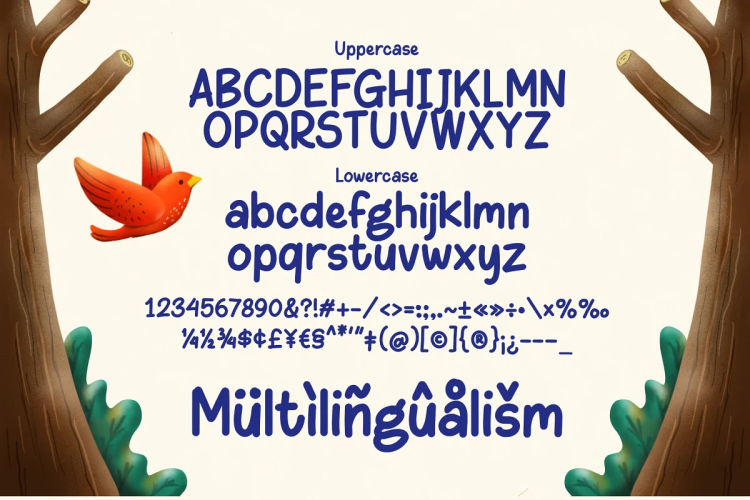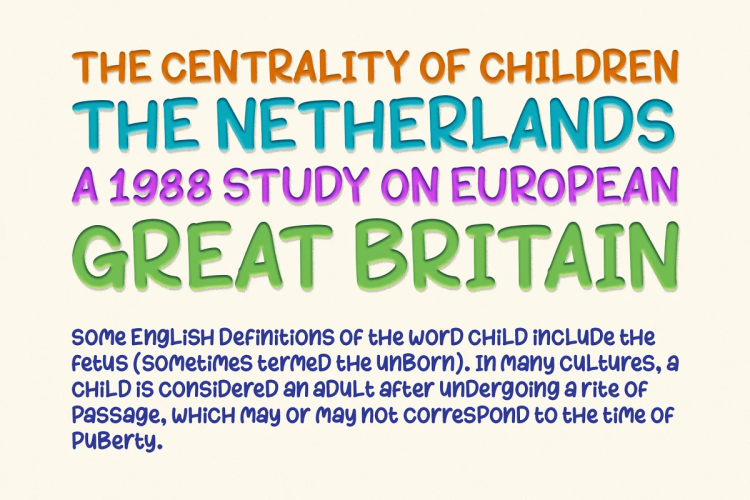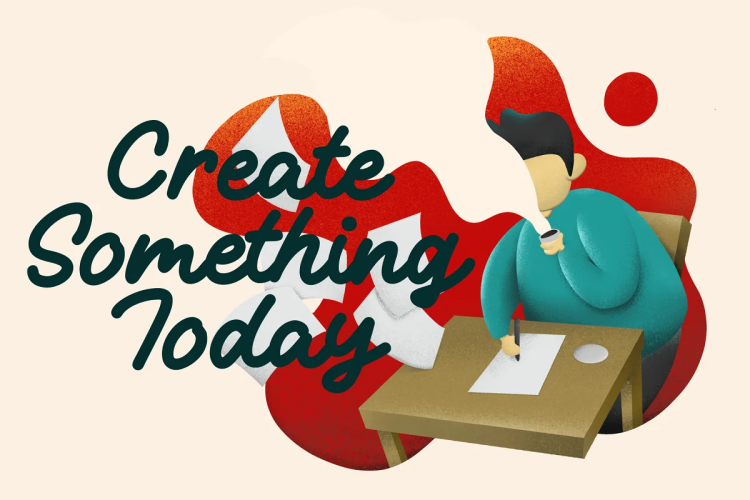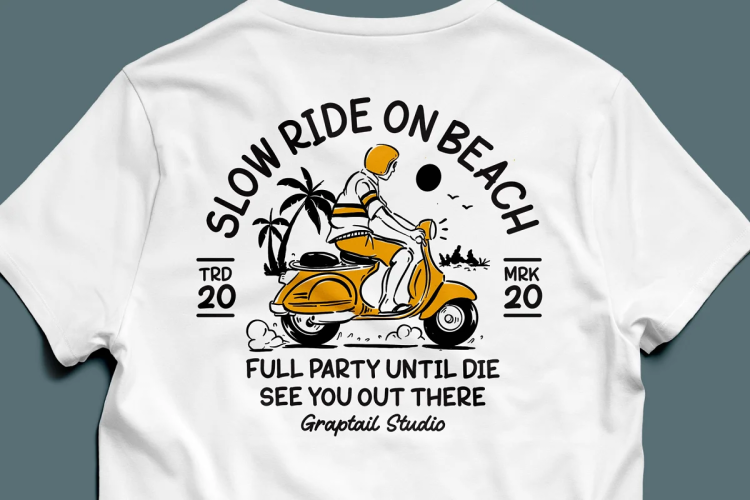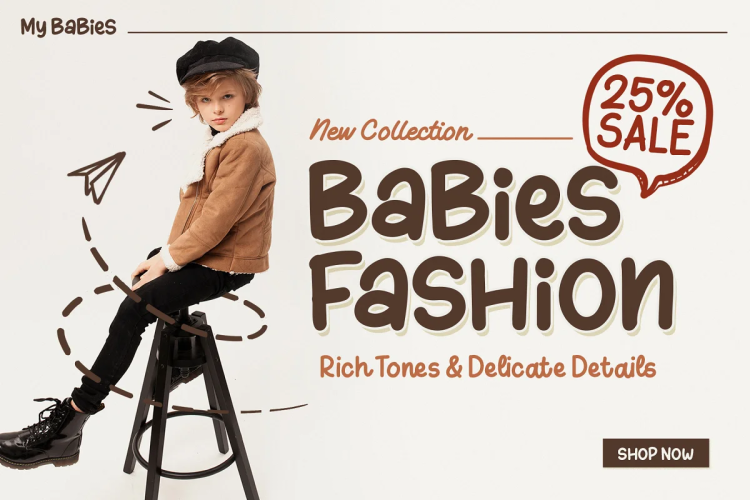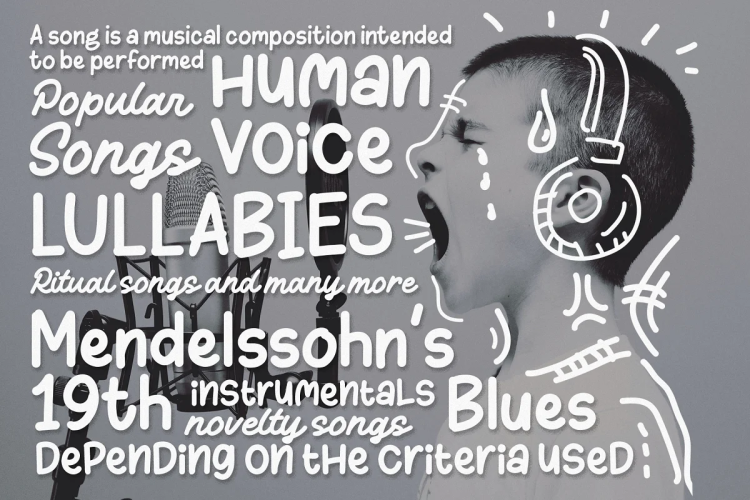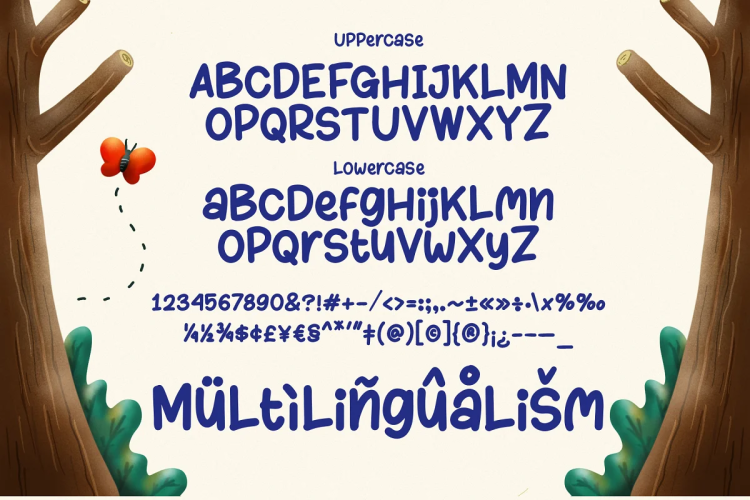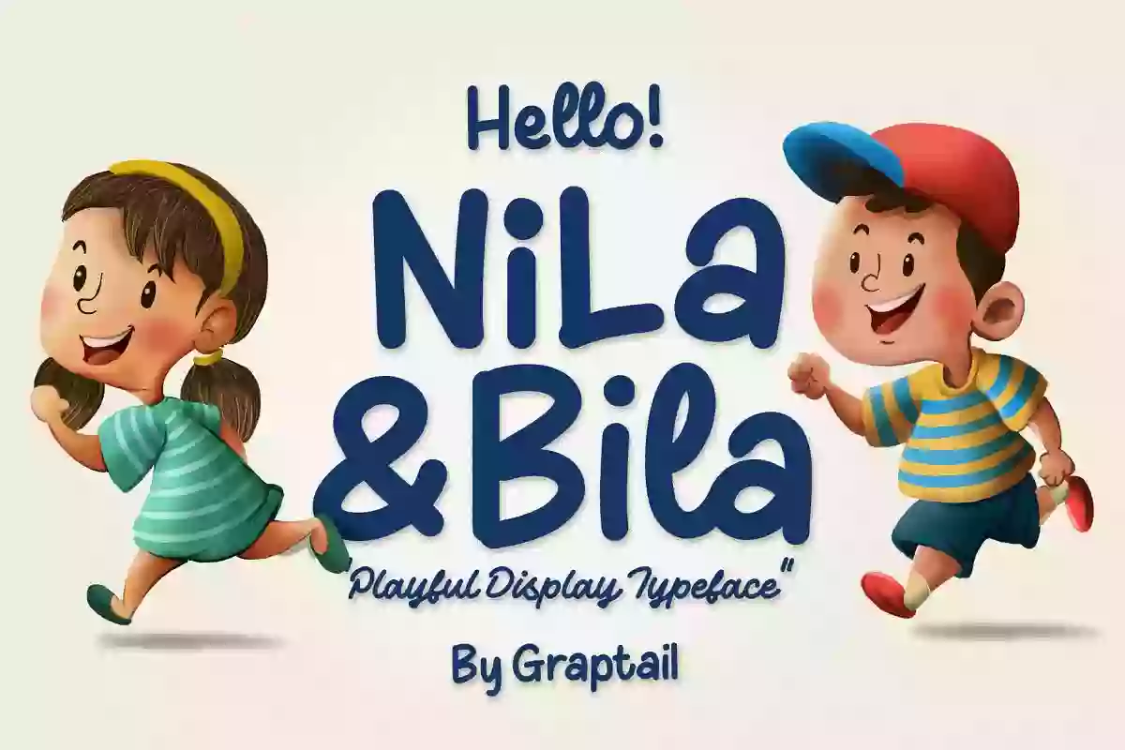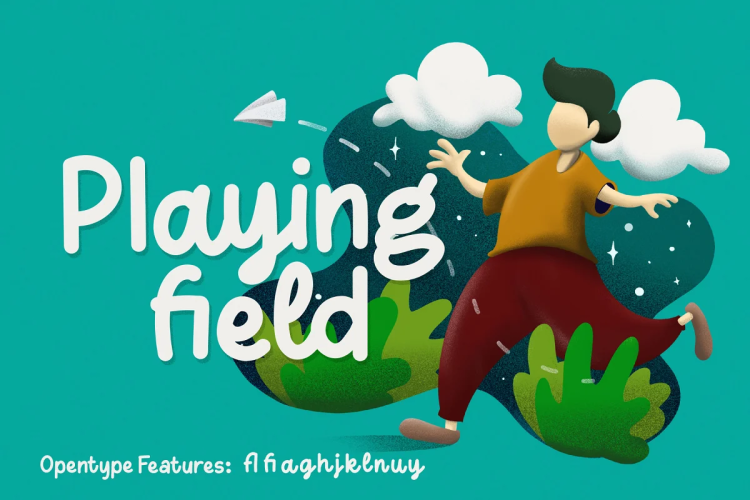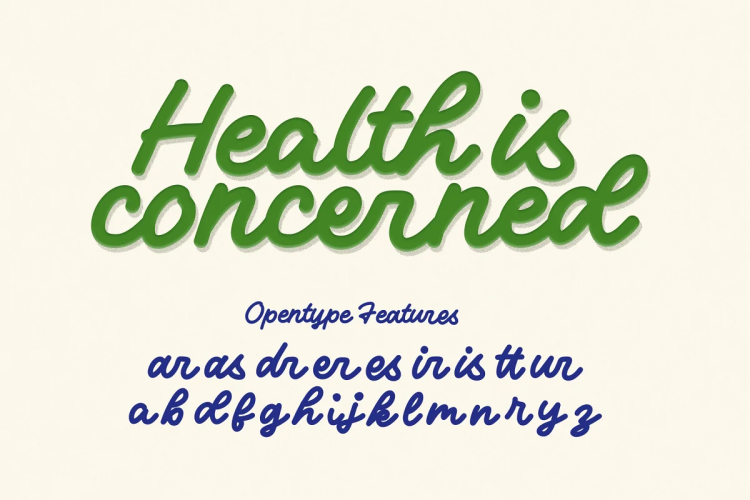
Nila & Bila Font
Say Hello to Nila & Bila – a cute little font with three great fonts and complete with illustrations and icons that can add to your excitement, easy to use, and you can combine them to get results that inspire your work.
Nila & Bila Font best uses for headings, Logo type, quotes, apparel design, invitations, flyer, poster, greeting cards, product packaging, book cover, printed quotes, cover album, movie, etc
OPENTYPE FEATURES
Discretionary Ligature
Standard Ligature
Fractions
Stylistic Alternates
Stylistic Set
Nila & Bila Font is a Typeface font that brings a professional and versatile look to your projects. Say Hello to Nila & Bila – a cute little font with three great fonts and complete with illustrations and icons that can add to your excitement, easy to use, and you can combine them to get results that inspire your w.